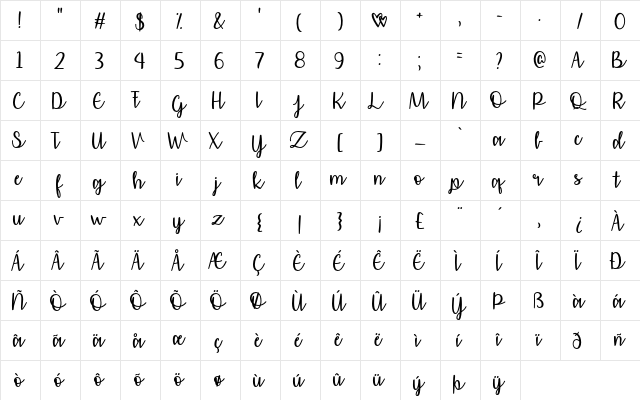
Affectionately Yours Regular
| Foundry | Misti's Fonts |
| Designer | Misti's Fonts |
Design Context for Affectionately Yours Typeface
Affectionately Yours is a composed and adaptable typeface that performs quietly and consistently across a wide range of design contexts.